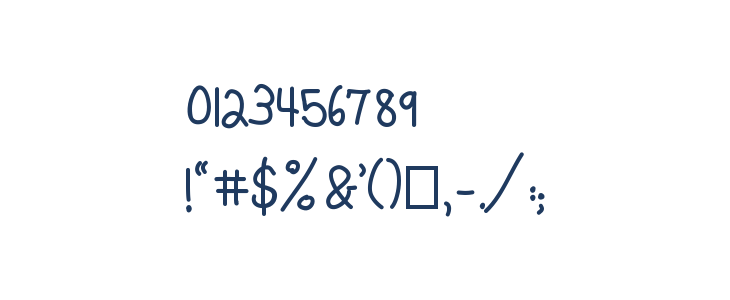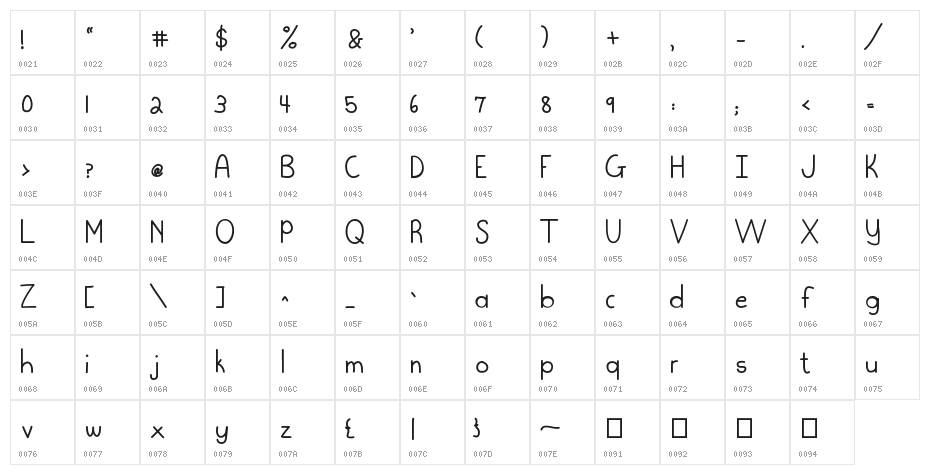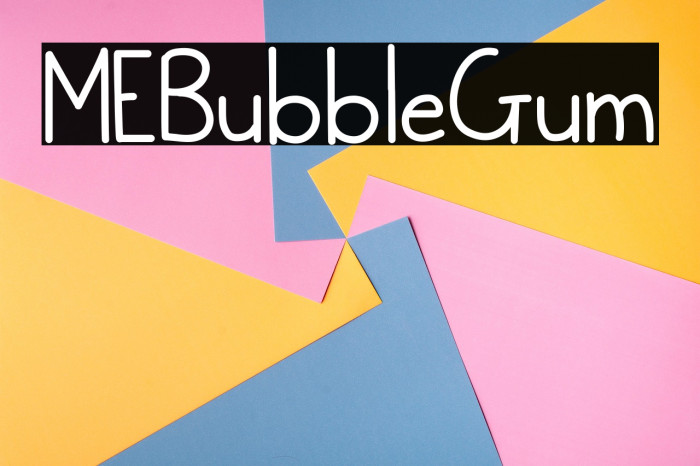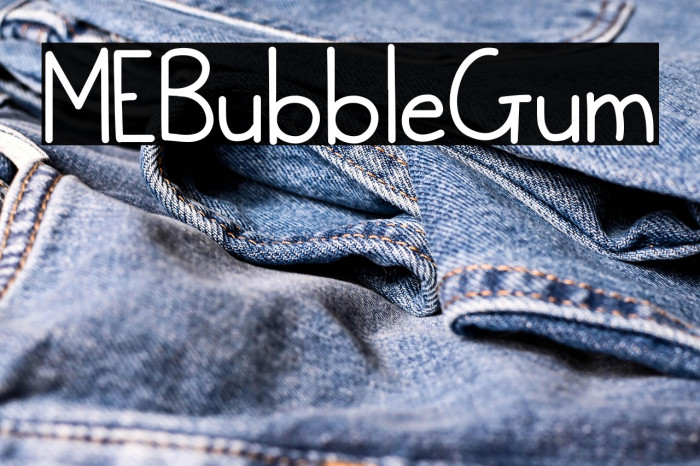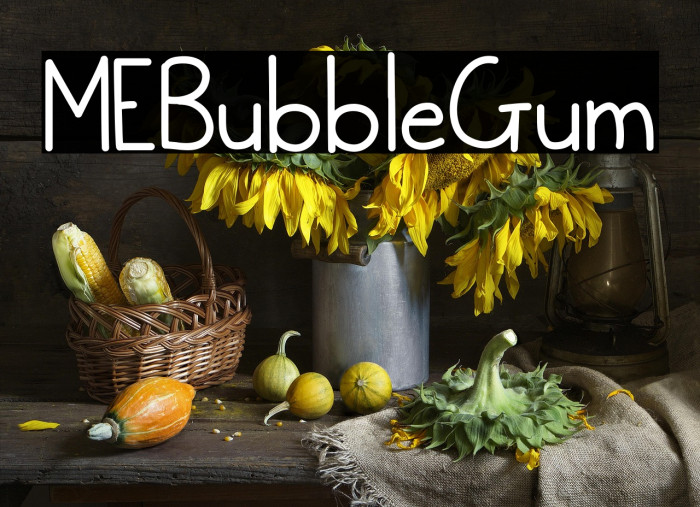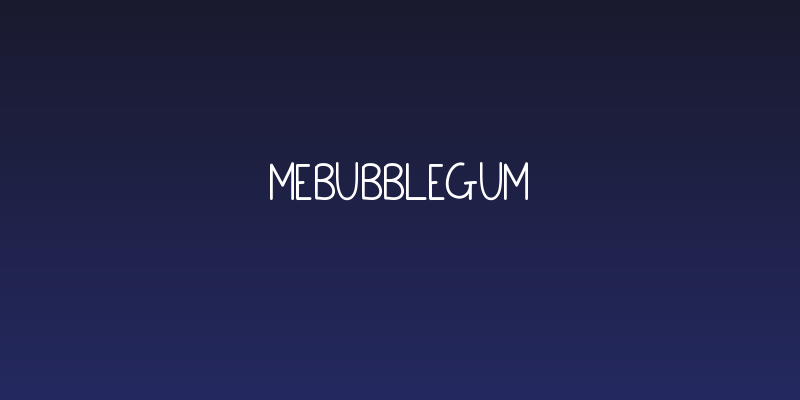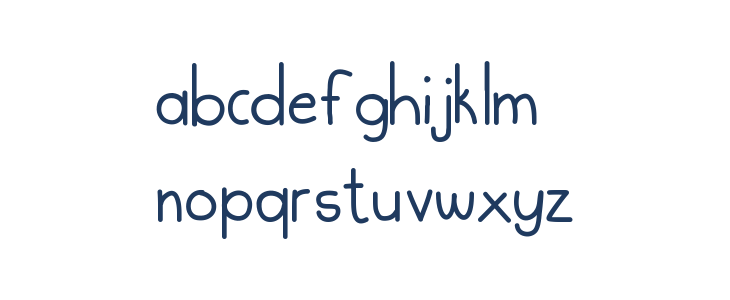
MEBubbleGum Font
MEBubbleGum Description
This playful and whimsical font features rounded, bubble-like characters that convey a sense of fun and lightheartedness. The letters are evenly spaced with a consistent stroke width, giving it a clean and approachable appearance. The uppercase and lowercase letters maintain a uniform style, with slightly exaggerated curves that enhance its playful nature. Numbers and special characters are designed to match the overall aesthetic, ensuring a cohesive look across all text elements. This font is ideal for projects that aim to capture a youthful and energetic vibe.
| Proposed Projects | Ideal for children's books, playful branding, party invitations, and casual social media graphics. |